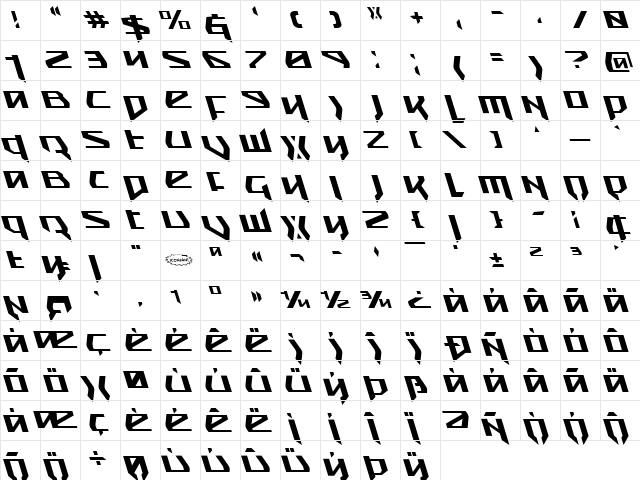
Snubfighter Leftalic Italic
| Designer | Erikstormtrooper and Iconian Fonts |
Design Context for Snubfighter Leftalic Typeface
Snubfighter Leftalic is a composed and adaptable typeface that performs quietly and consistently across a wide range of design contexts. Its italic angle brings a sense of urgency and motion to the letterforms.
Pro Tip: Try Snubfighter Leftalic for annotation and caption copy alongside an upright companion — the contrast in angle creates a dynamic but ordered typographic system.